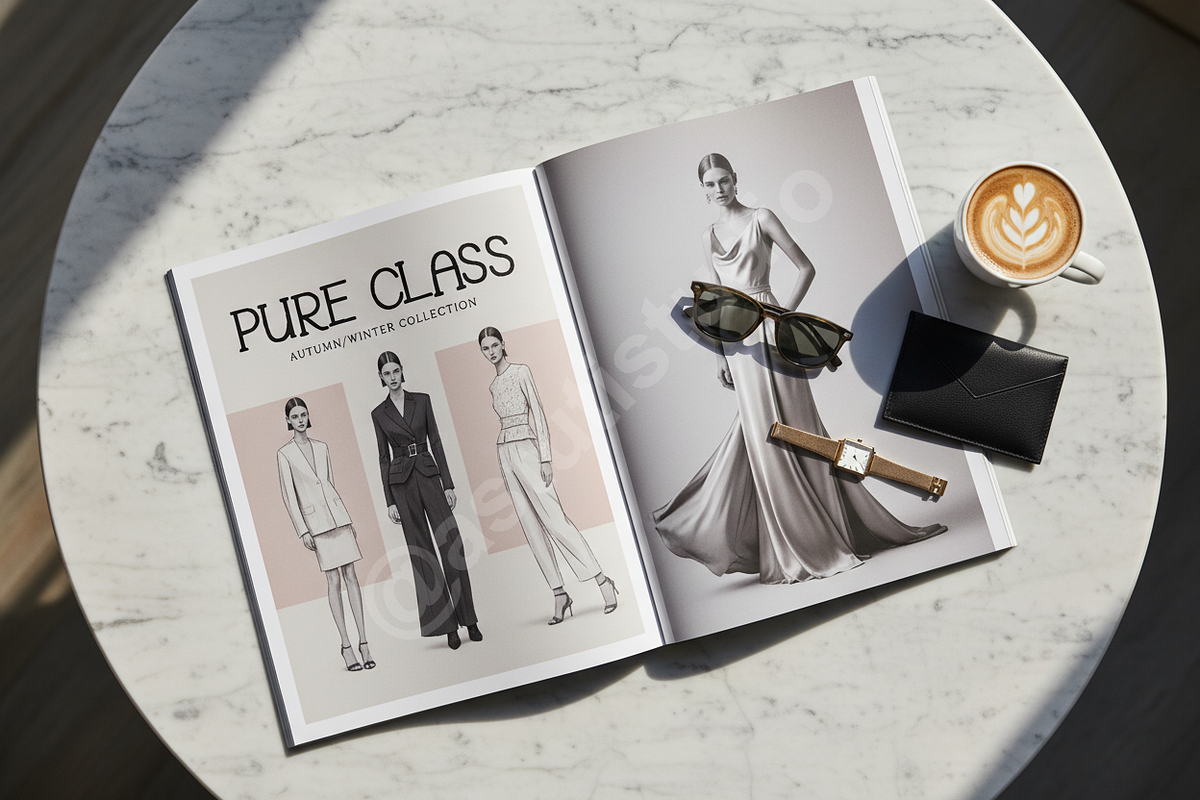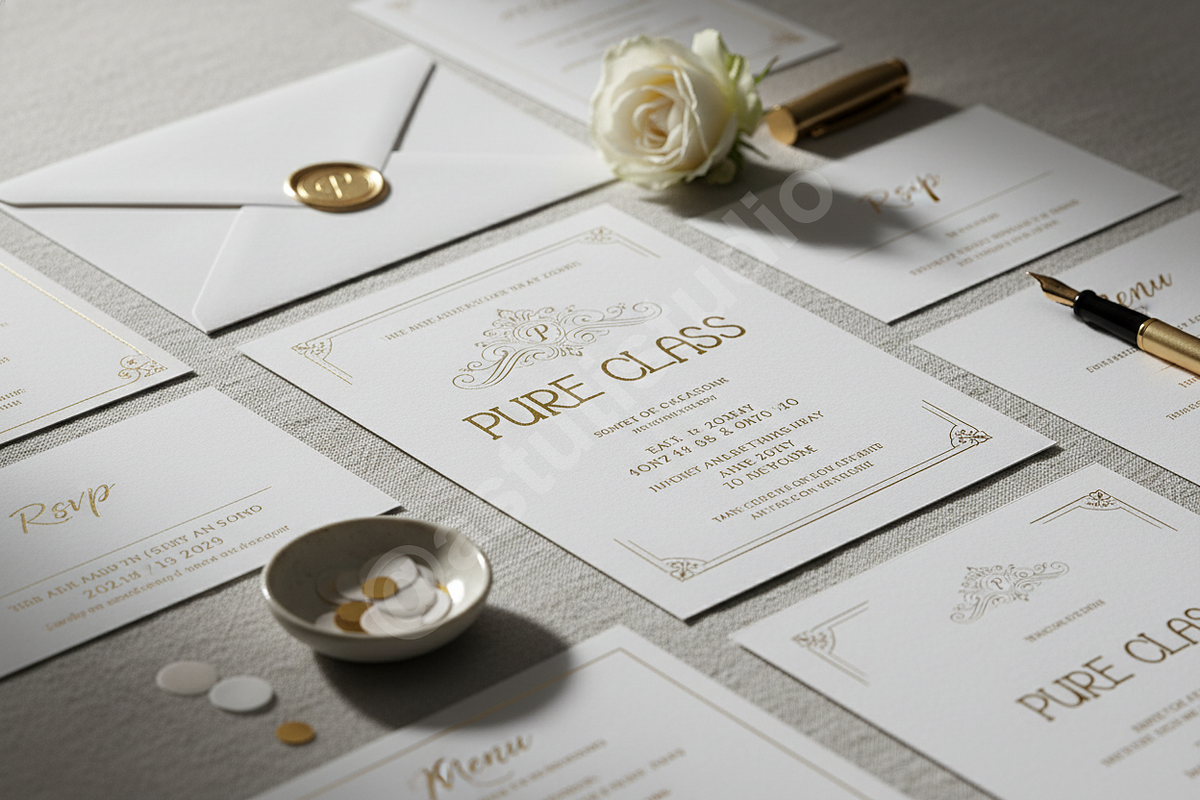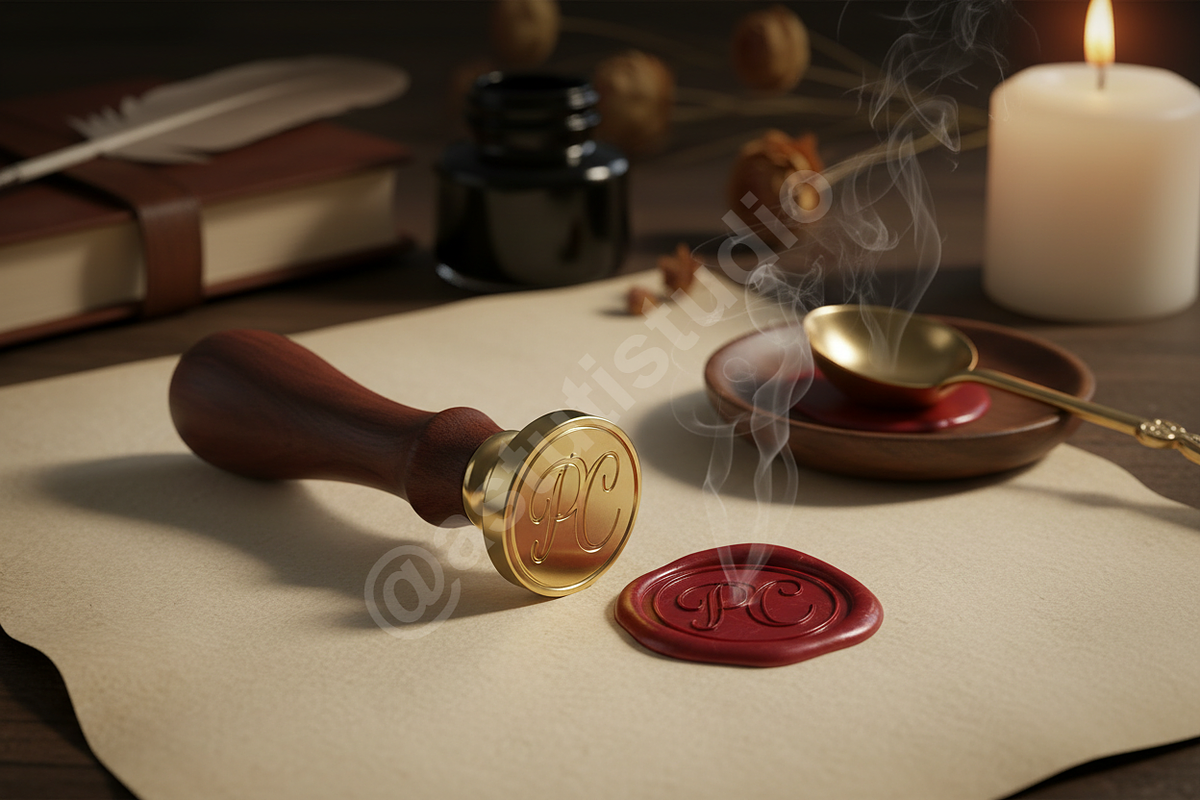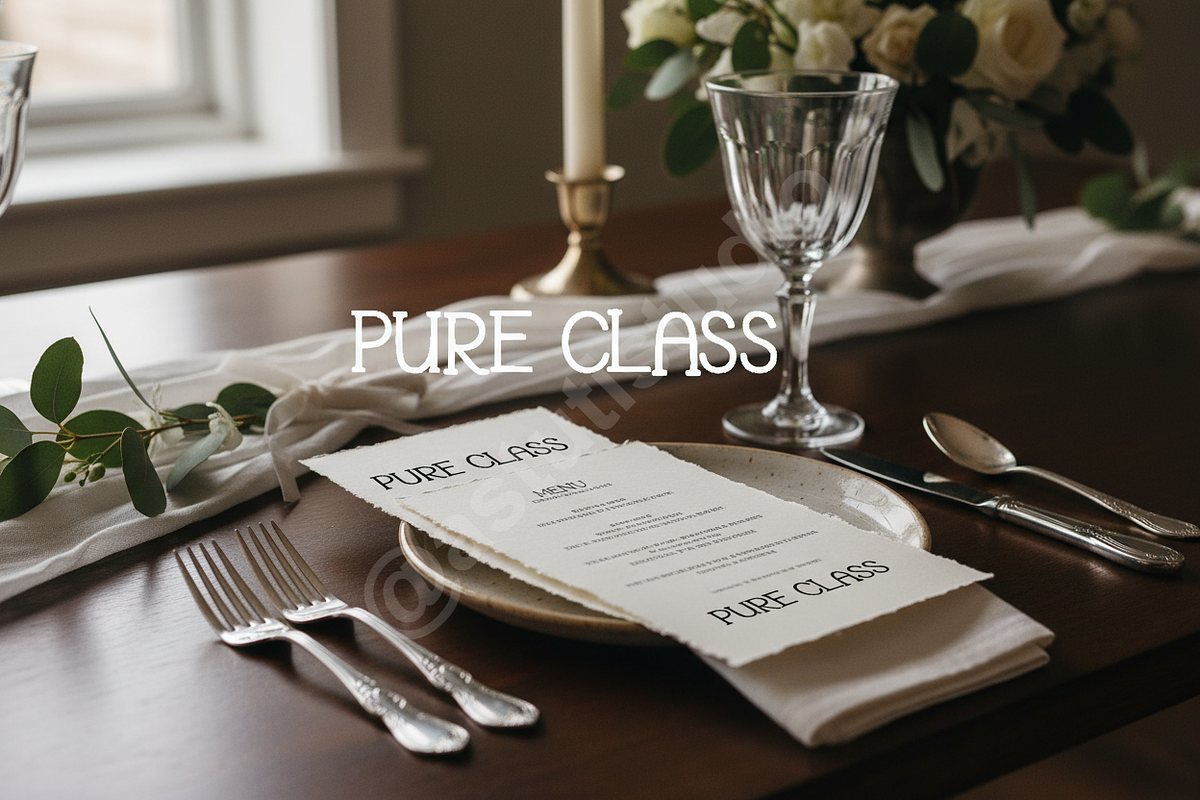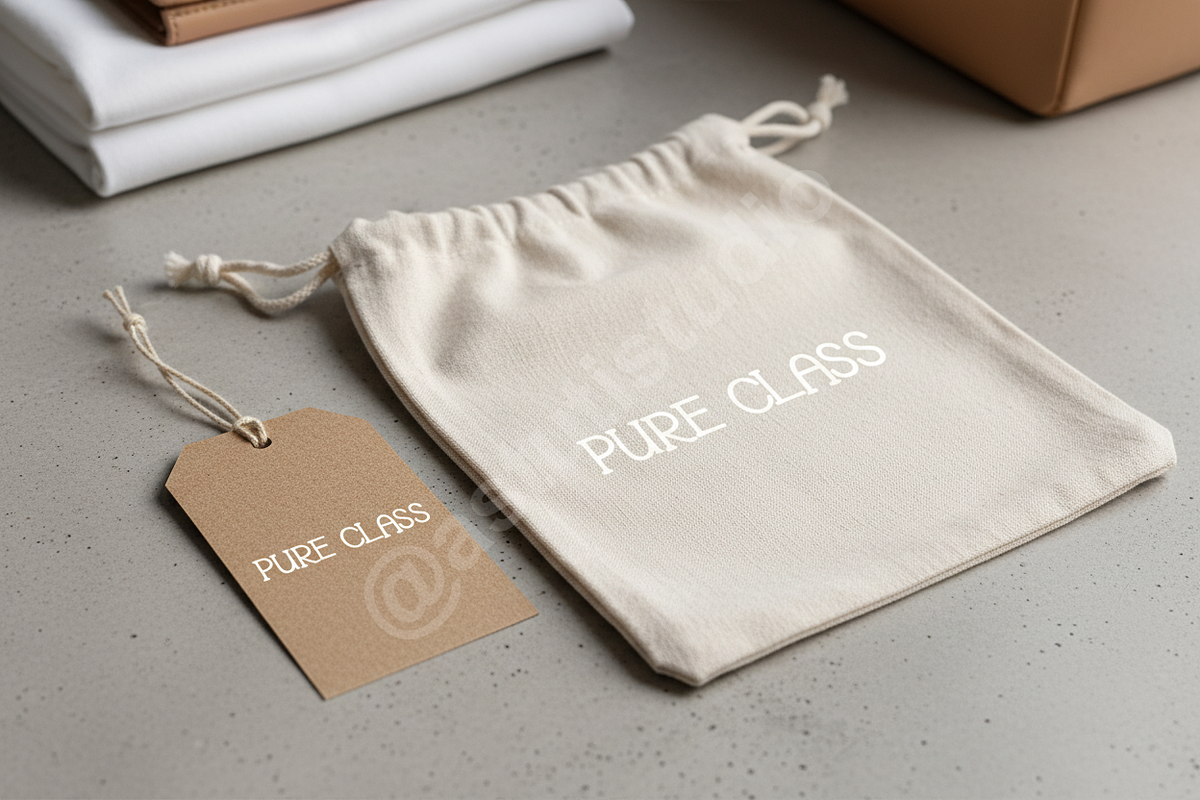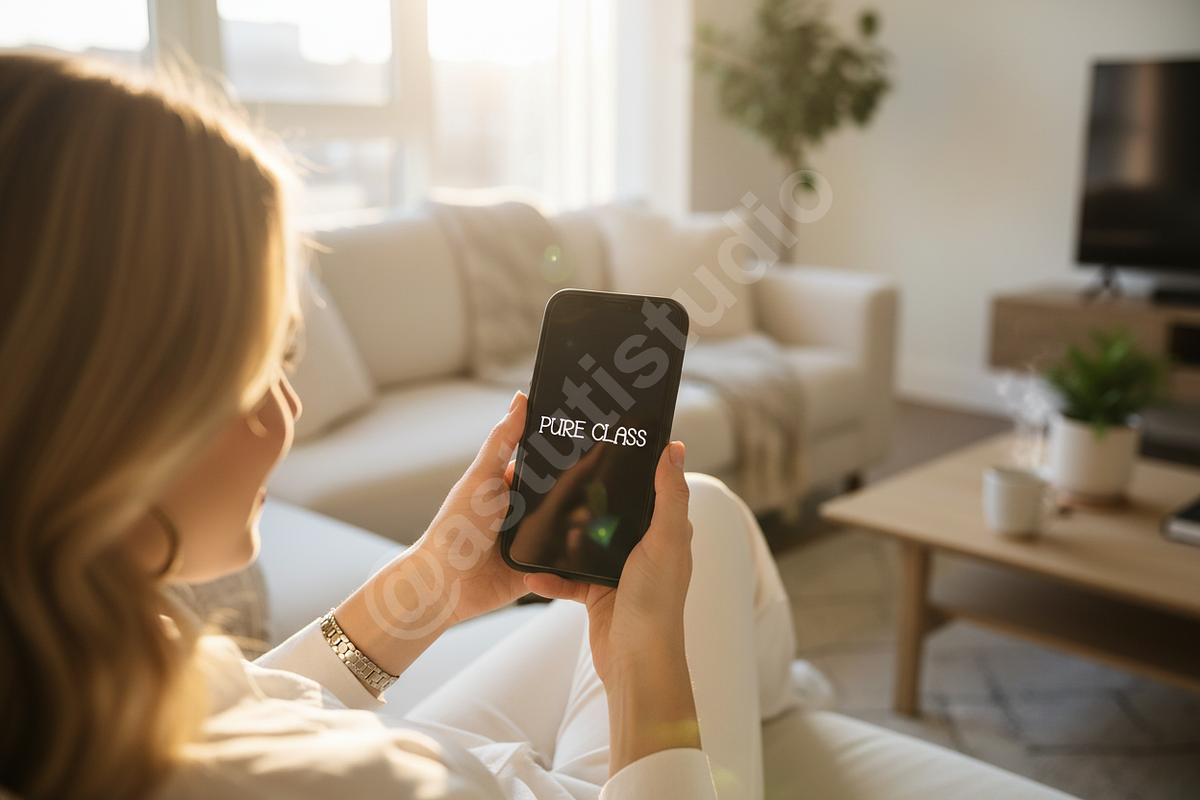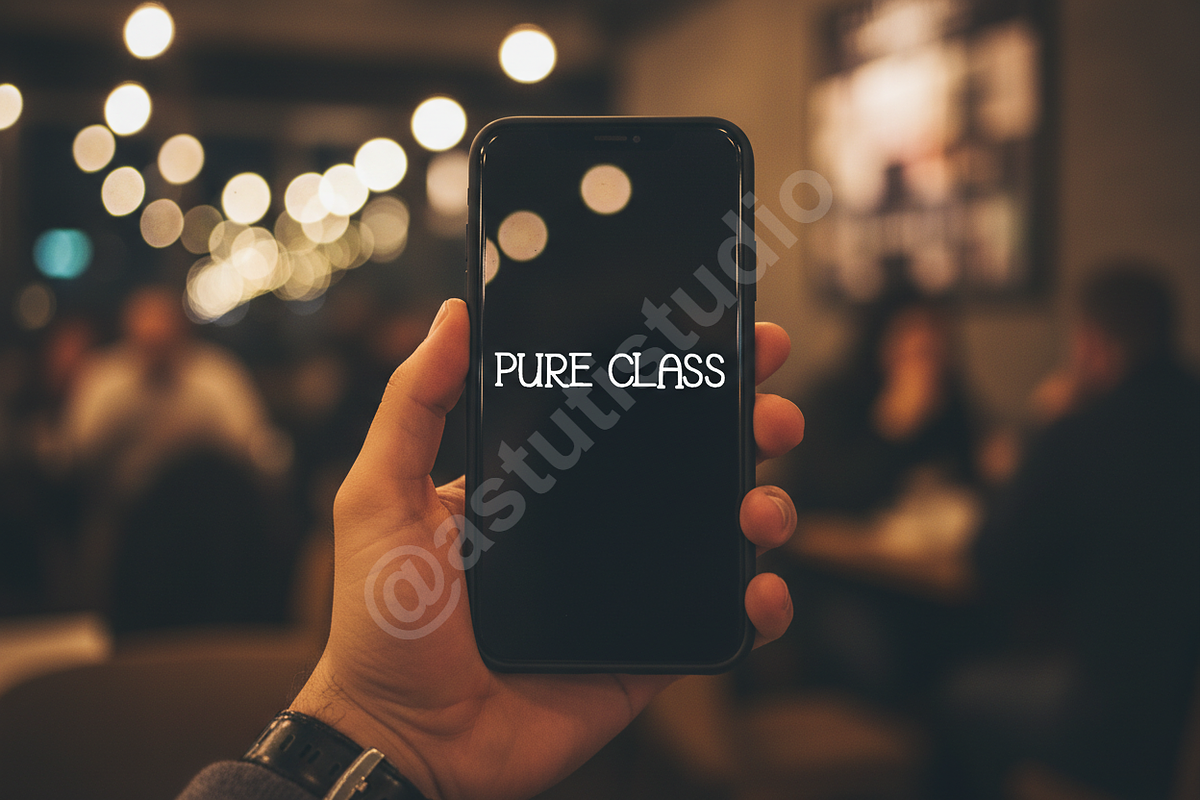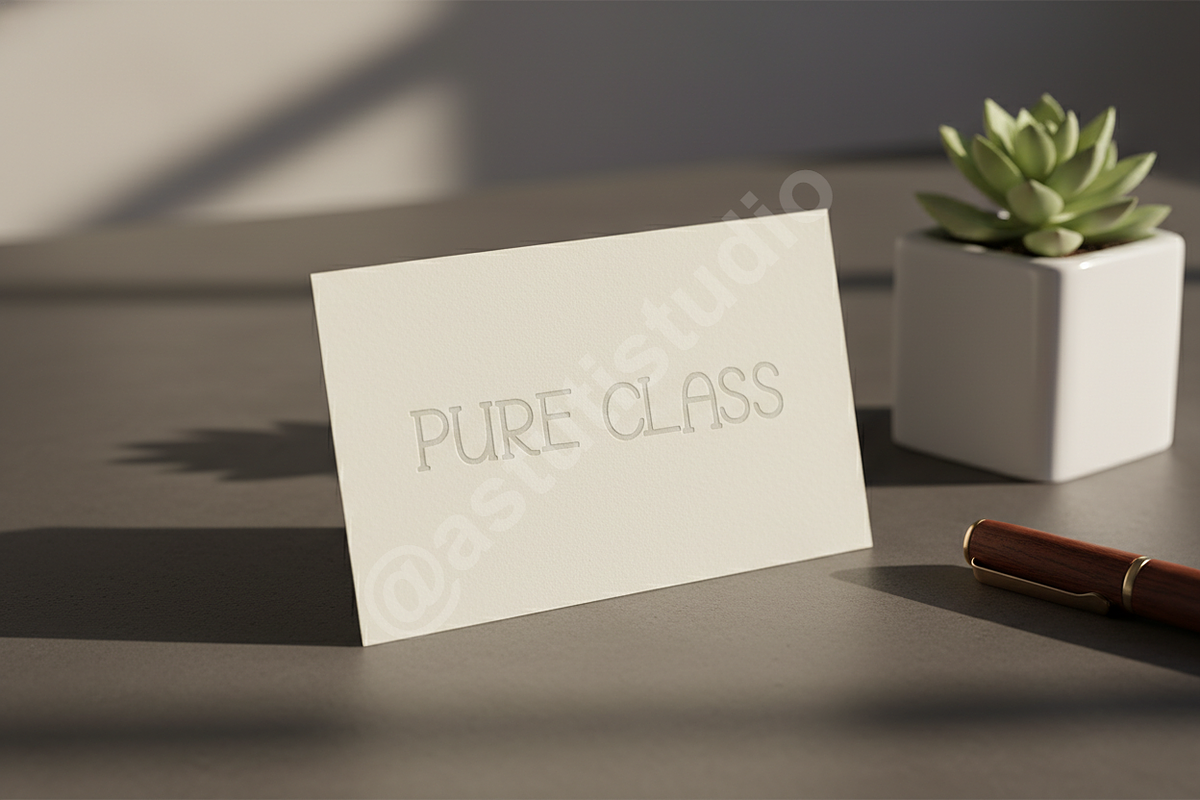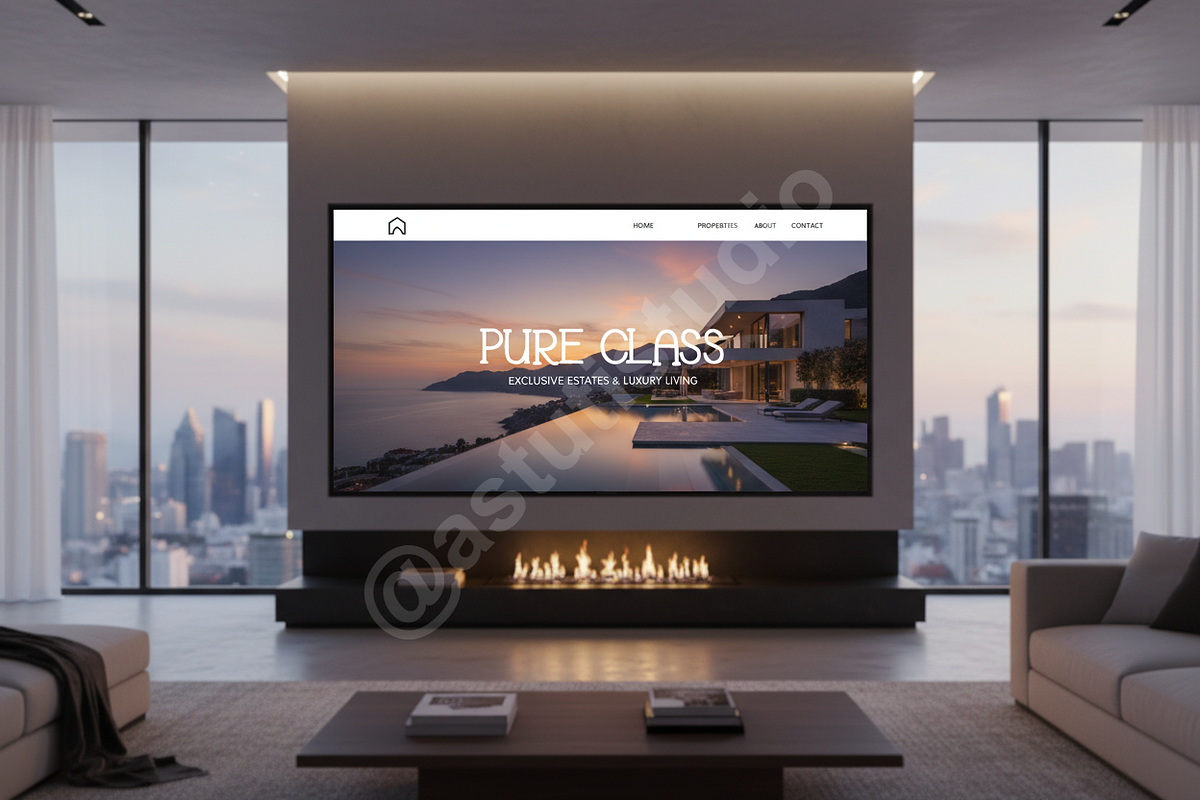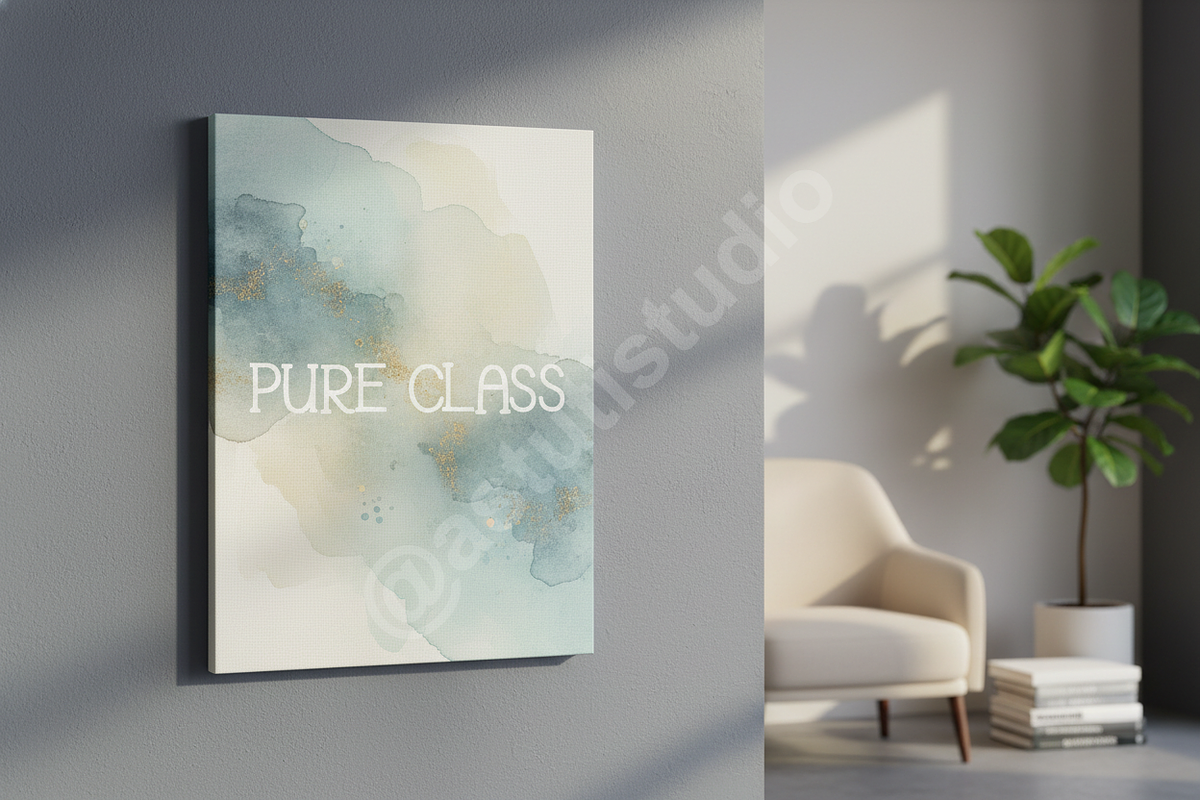
Deva Typeface: Modern Luxury Serif &
Deva is a meticulously crafted typeface designed to elevate your creative projects to the highest standard of sophistication. Merging timeless elegance with sharp modern precision, Deva embodies luxury, making it the definitive choice for brands seeking a visually arresting and memorable identity. Perfect for high-fashion editorial spreads, prestige packaging, and impactful social media campaigns.
- Optimized Readability: Balanced proportions ensuring legibility across print and digital platforms.
- Stylistic Versatility: Complete set of Serif and complementary Sans styles included.
- Elegant Ligatures: Over 40 custom ligatures and swashes to enhance high-end typography.